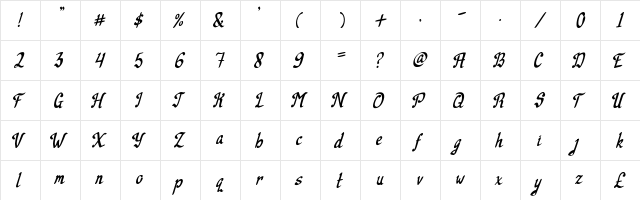
Camille Script
| Style | Script |
| Foundry | TGIF |
| Designer | TGIF |
Design Context for Camille Typeface
Camille brings a calligraphic fluidity to the page — its connecting strokes and expressive curves give it an unmistakably human quality.
Font Pairing: Combine Camille with a simple geometric sans for maximum contrast — the tension between flowing curves and clean structure is a classic typographic pairing.
Pro Tip: Use Camille for short runs of text — names, titles, or taglines. Extended body copy in script faces tires the eye quickly.